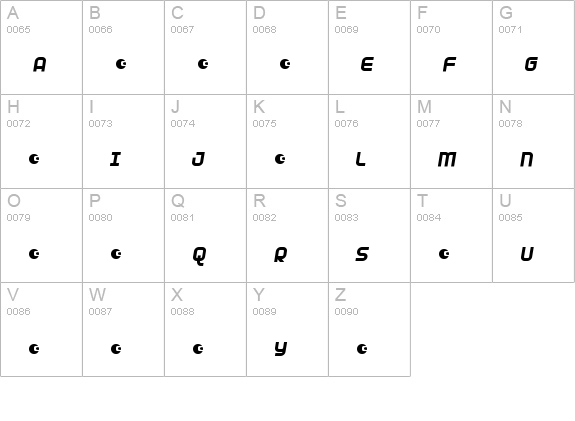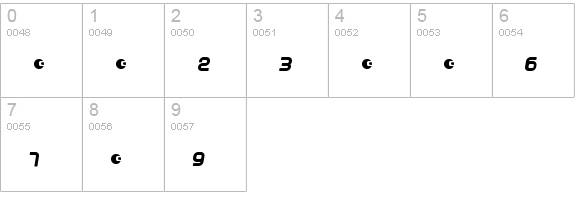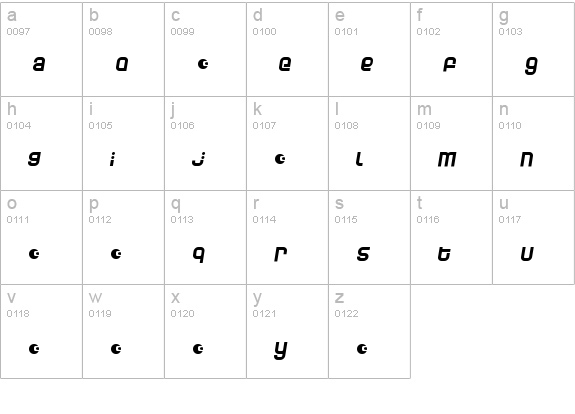
Dunebug Alternates 45MPH font is a stylish and dynamic typeface that exudes speed and energy. With its bold and sharp design, this font is perfect for creating eye-catching headlines, posters, and branding materials that demand attention. The alternate characters add a touch of creativity and versatility to your designs, allowing you to customize and personalize your text with ease. Best of all, Dunebug Alternates 45MPH font is available for free download at FontsMarket.com. Whether you're a designer looking to add a unique flair to your projects or a hobbyist seeking to enhance your creations, this font is a must-have addition to your toolkit. Don't miss out on the opportunity to elevate your designs with this exciting and dynamic font - download Dunebug Alternates 45MPH today for free!